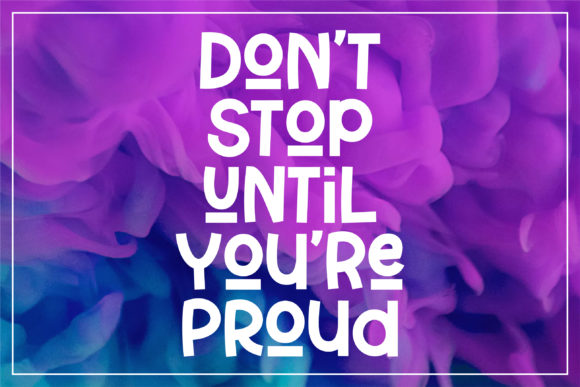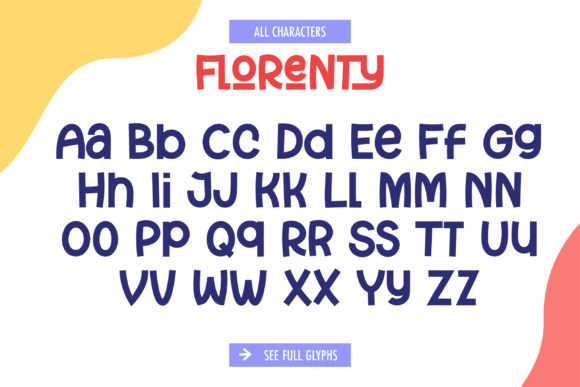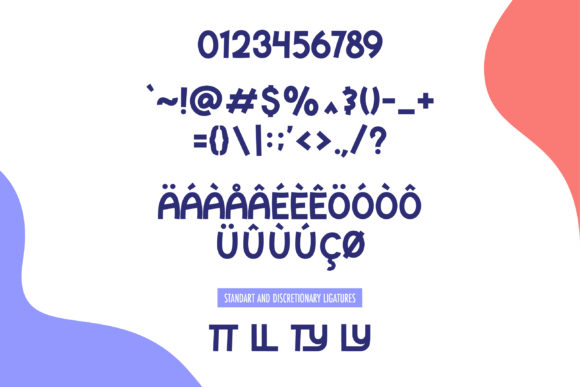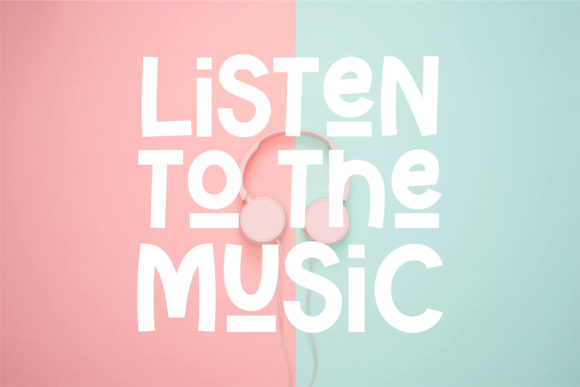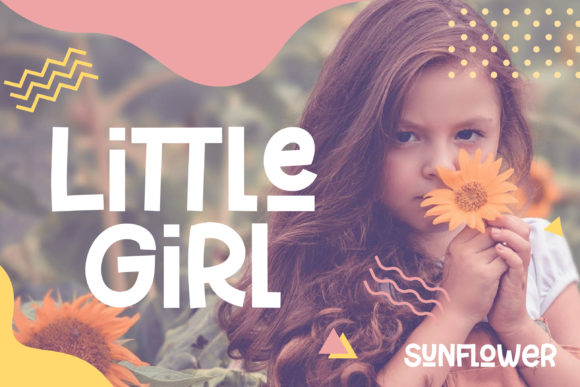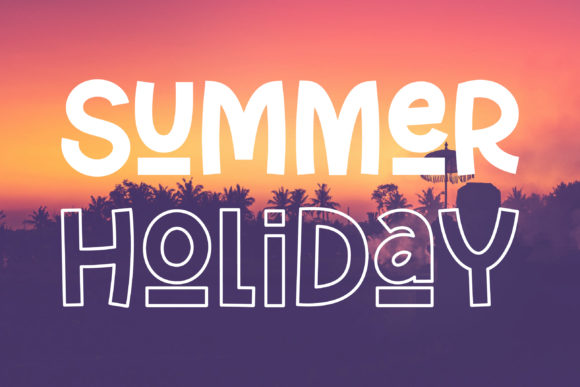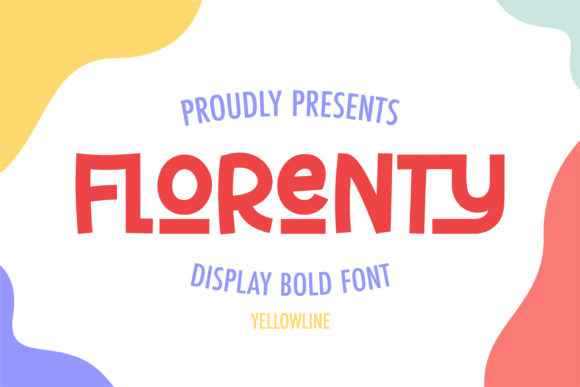
Introducing Florenty Font: Add a Whimsical Charm to Your Crafts
Are you a designer or crafter looking for a font that can add a playful touch to your projects? Look no further than Florenty Font! This fun and playful display font is perfect for anyone who wants to infuse their crafts with a cute and whimsical charm. In this article, we’ll take a closer look at Florenty Font, its features, and how you can use it to elevate your crafts.
What is Florenty Font?
Florenty Font is a display font designed to bring a sense of playfulness and fun to your projects. Its cute and charming feel makes it perfect for crafts, DIY projects, and even digital designs. The font is carefully crafted to be highly legible, making it easy to read and understand, even at larger sizes.
Key Features of Florenty Font
- Playful and Fun: Florenty Font is designed to add a playful touch to your projects. Its unique and quirky feel makes it perfect for crafts and DIY projects that require a personal touch.
- Cute and Whimsical: The font’s cute and whimsical feel makes it perfect for projects that require a touch of personality. Whether you’re designing a logo, creating a craft, or making a DIY project, Florenty Font is sure to impress.
- Highly Legible: Despite its playful feel, Florenty Font is highly legible, making it easy to read and understand, even at larger sizes.
- Versatile: Florenty Font is a versatile font that can be used for a wide range of projects, from crafts and DIY projects to digital designs and logos.
| Font Name | Florenty Font |
| Author | yellowline |
Florenty Font is a fun and playful display font that’s perfect for adding a whimsical charm to your crafts and DIY projects. Its cute and charming feel makes it perfect for designers and crafters who want to infuse their projects with a personal touch. With its highly legible design and versatile feel, Florenty Font is sure to become a favorite in your font collection.